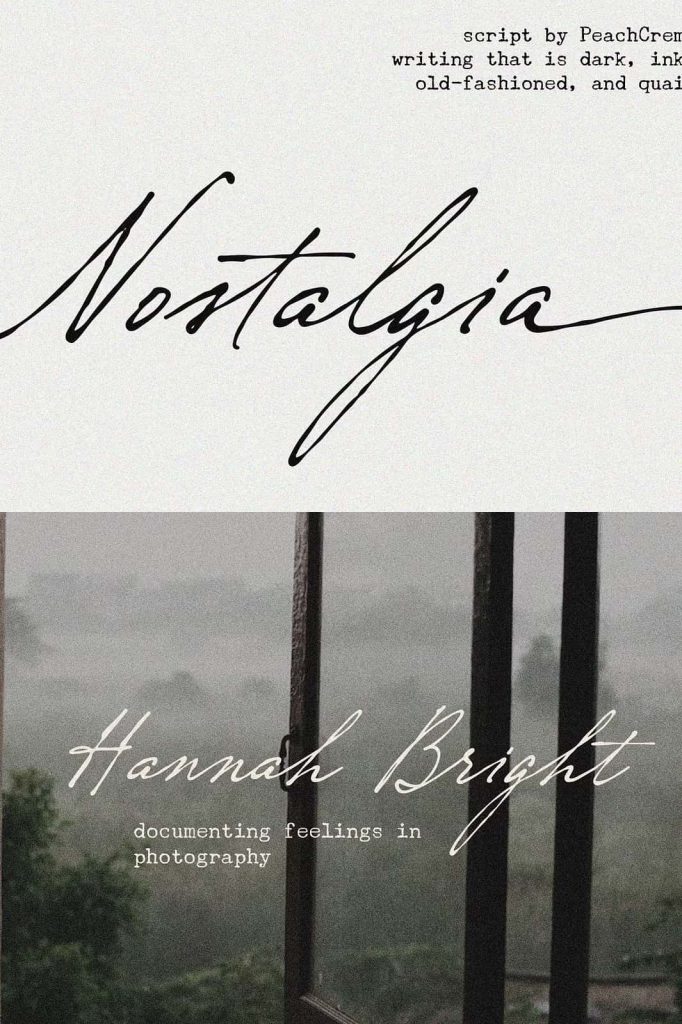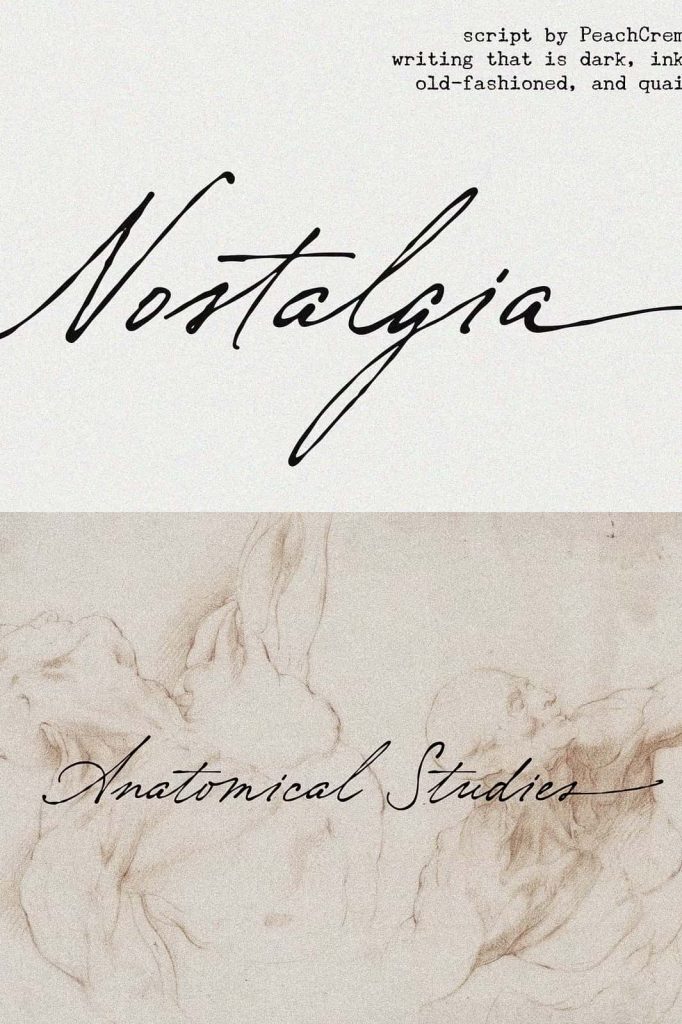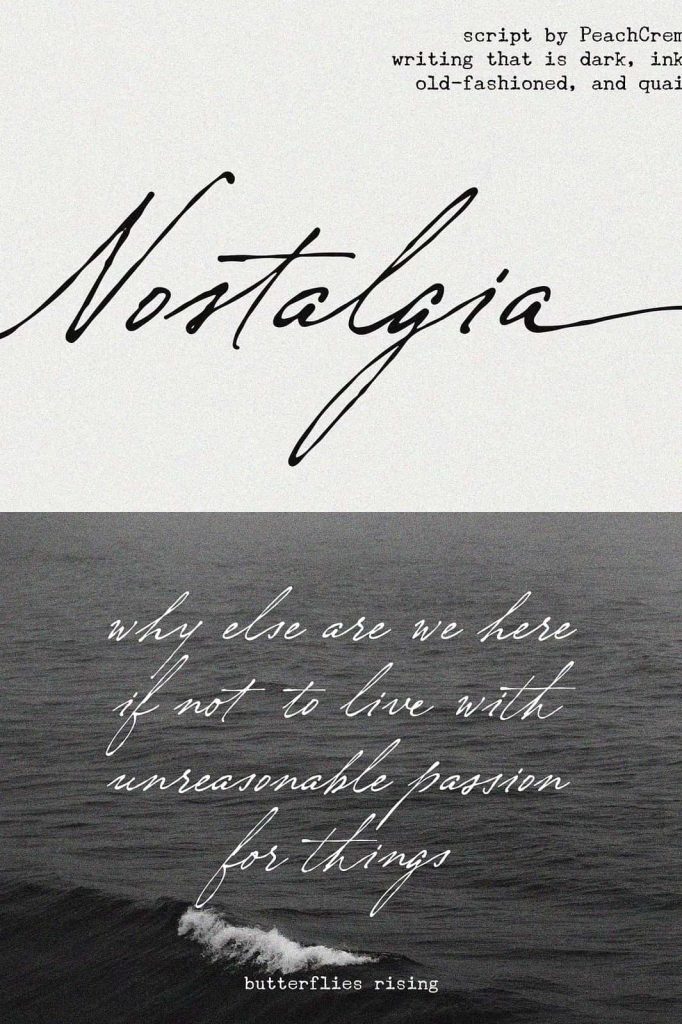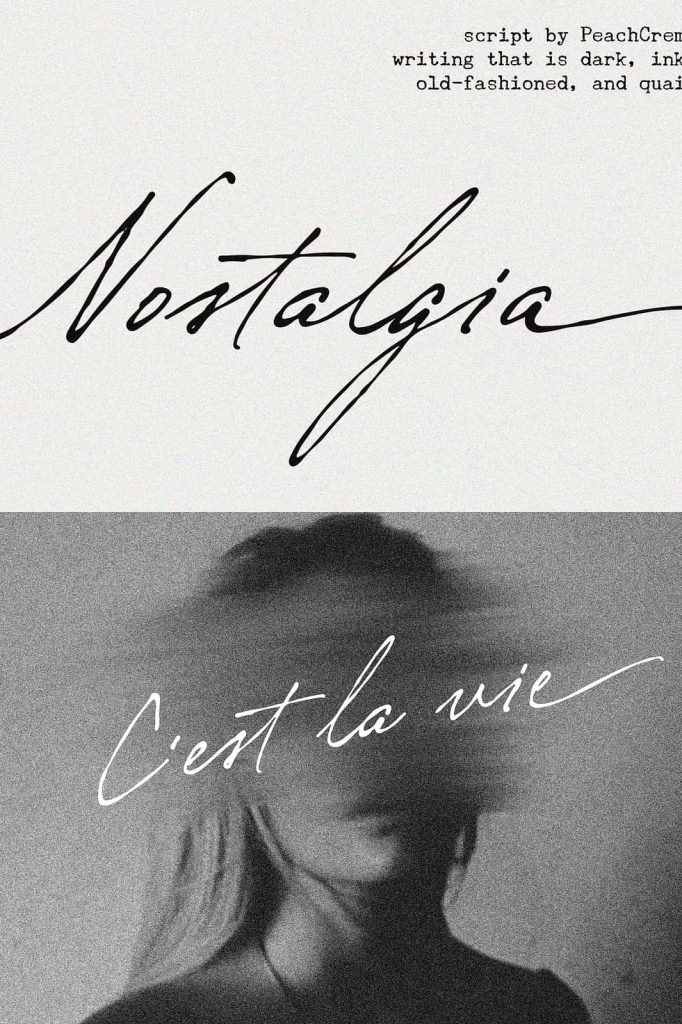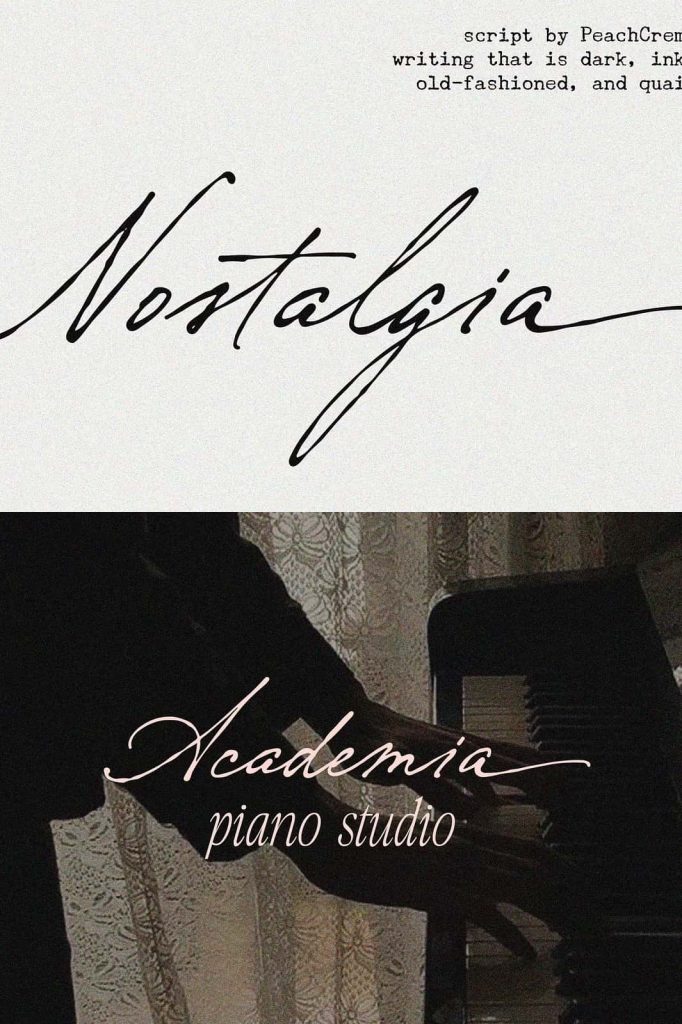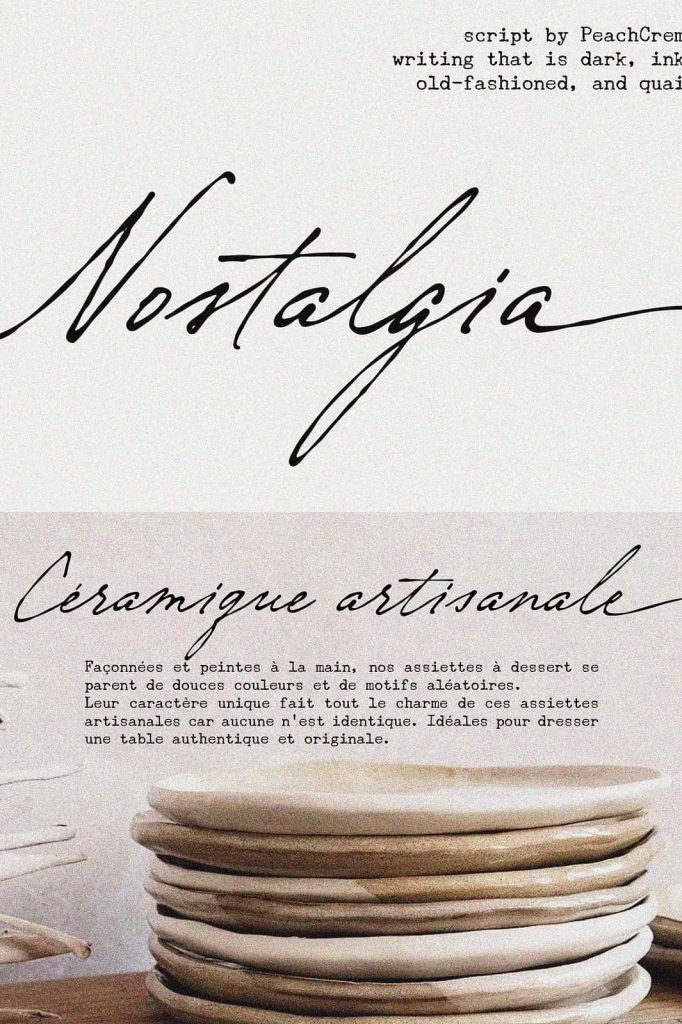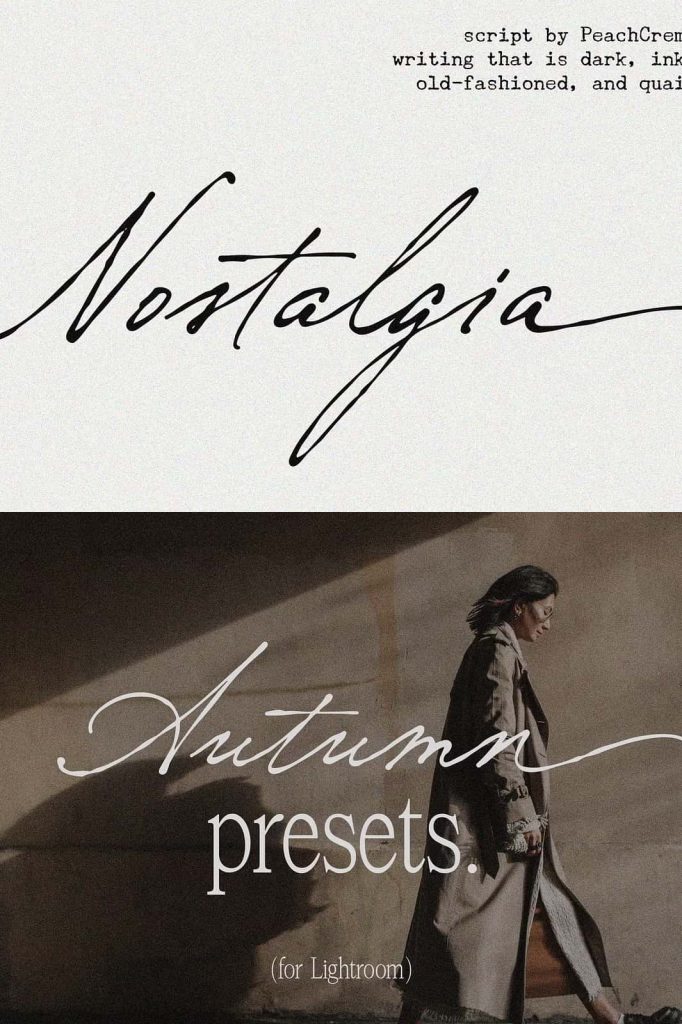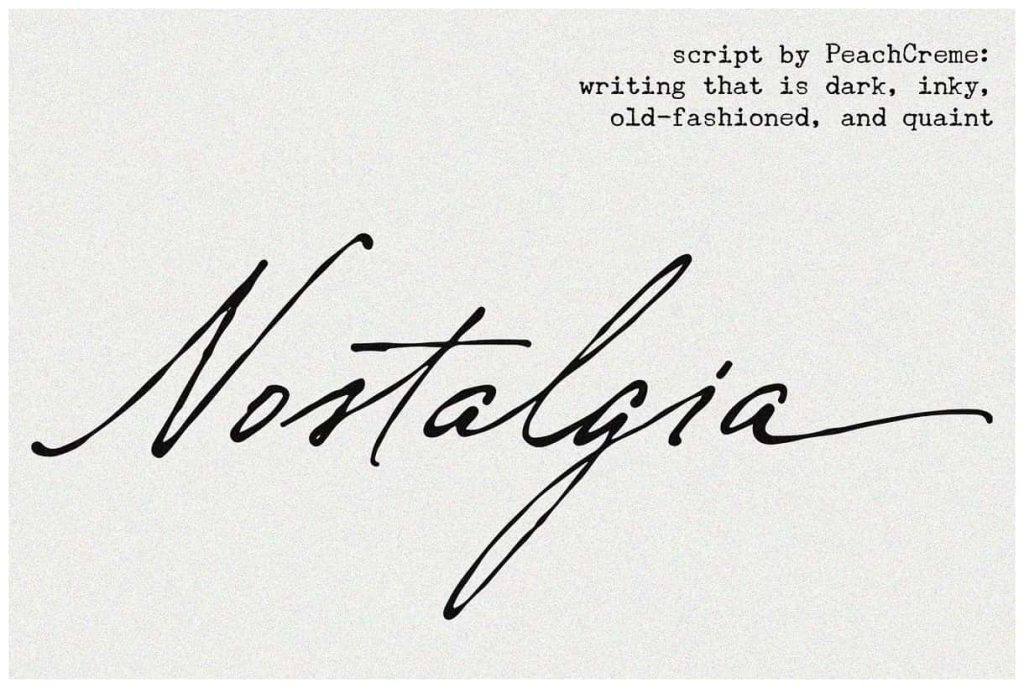
Nostalgia // Vintage Script Font
The “Nostalgia” font is a dark, vintage style that includes all the basic characters (letters, numbers, and punctuation) and is very simple to read.